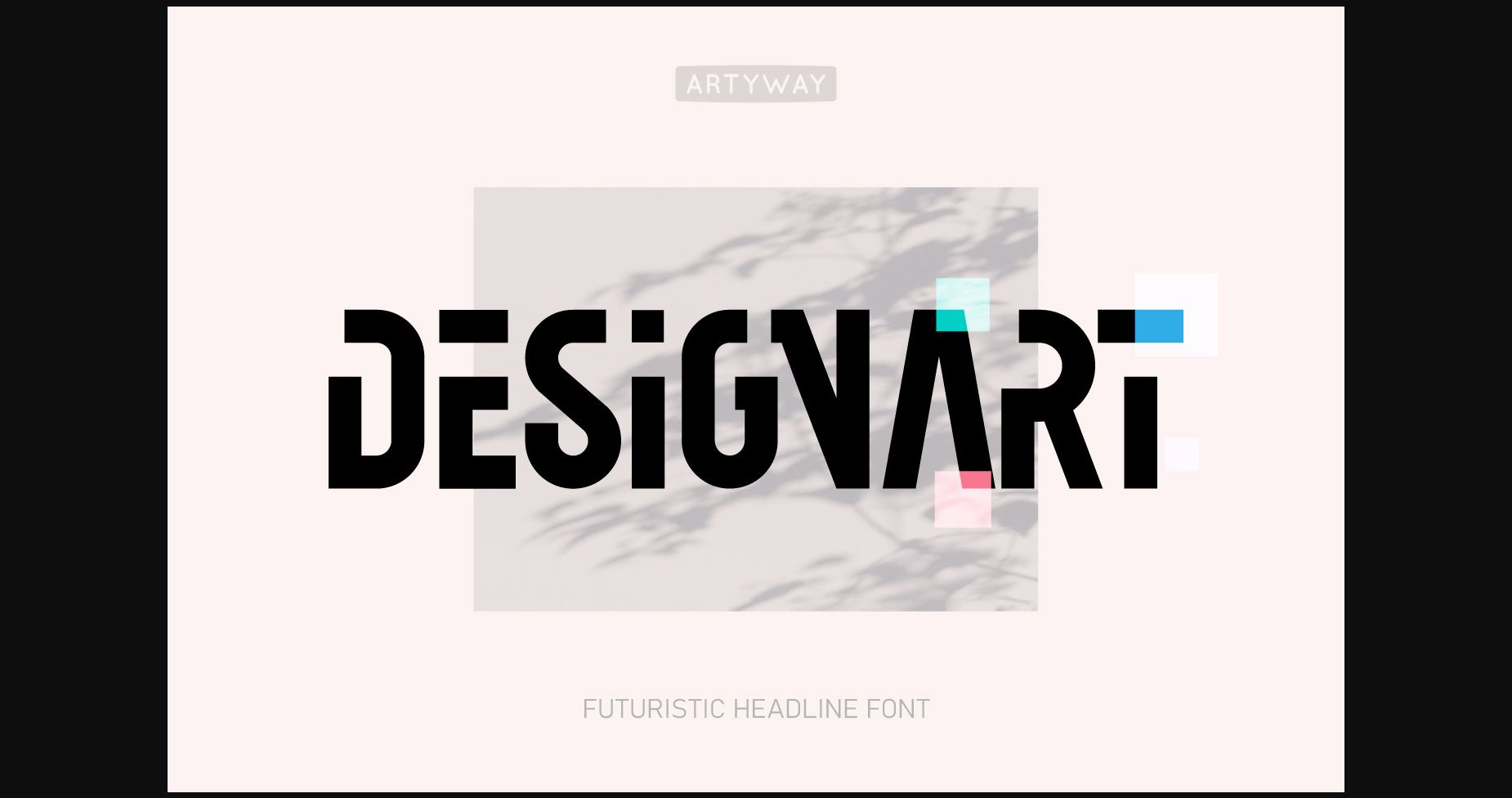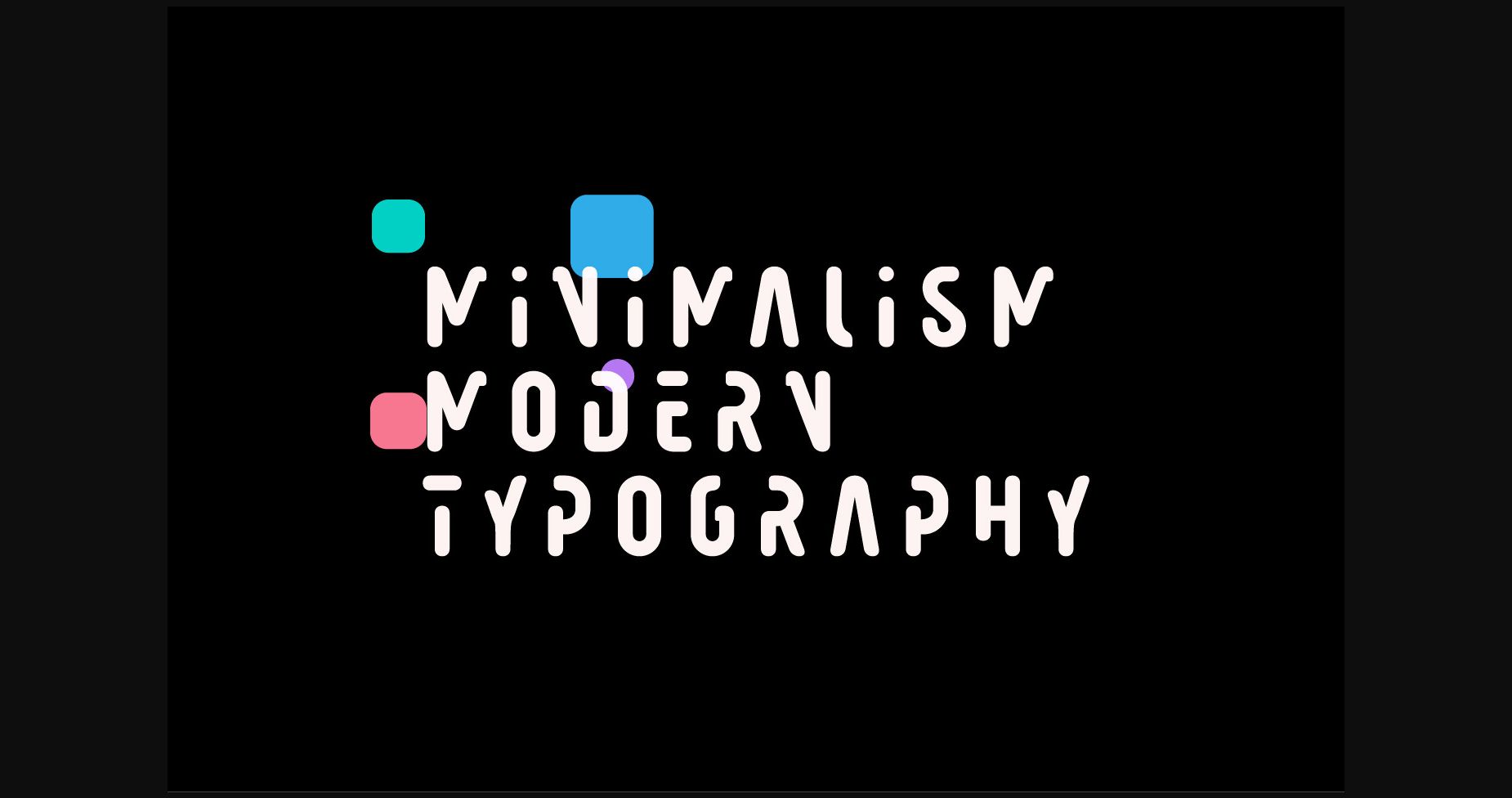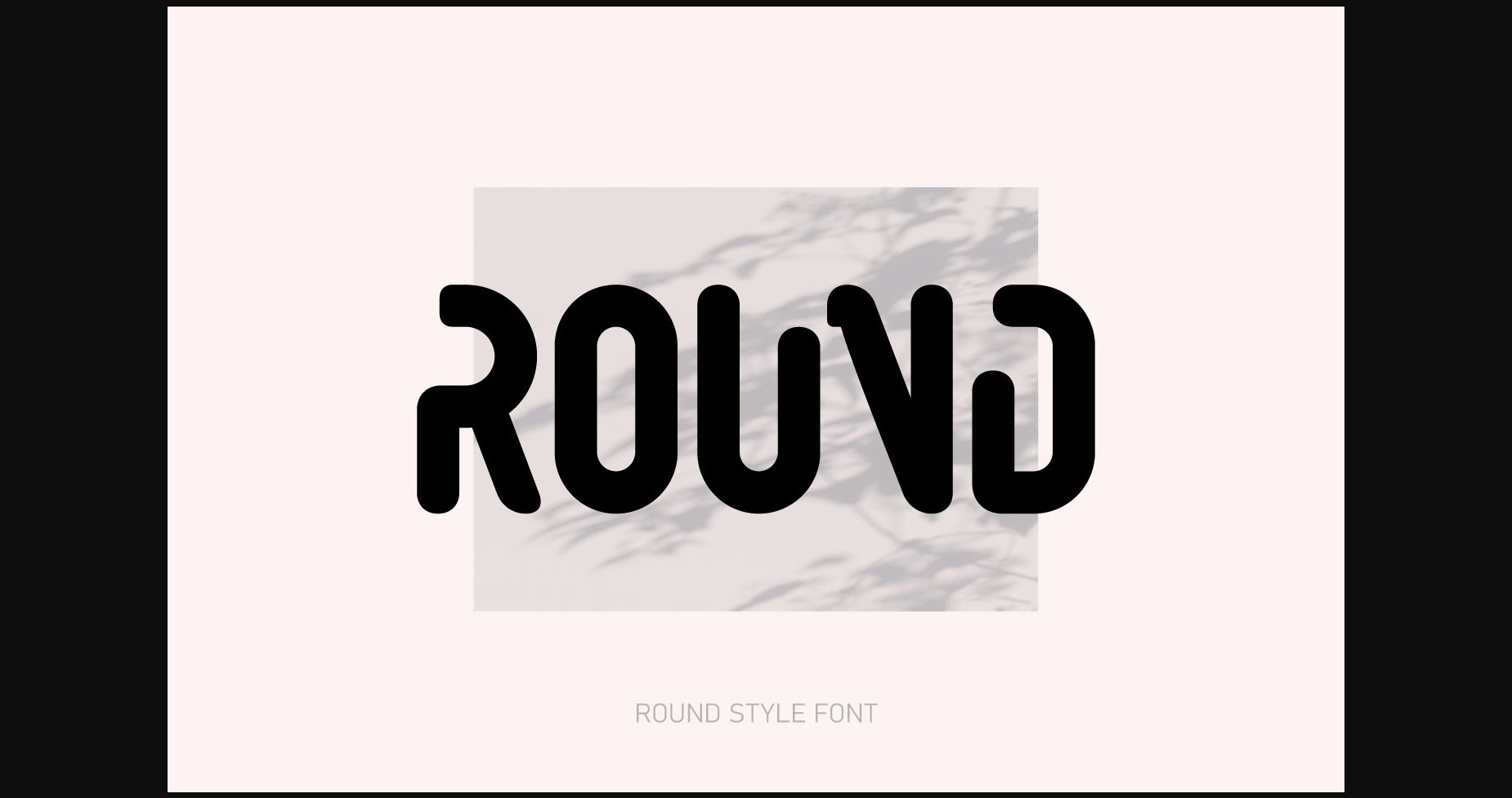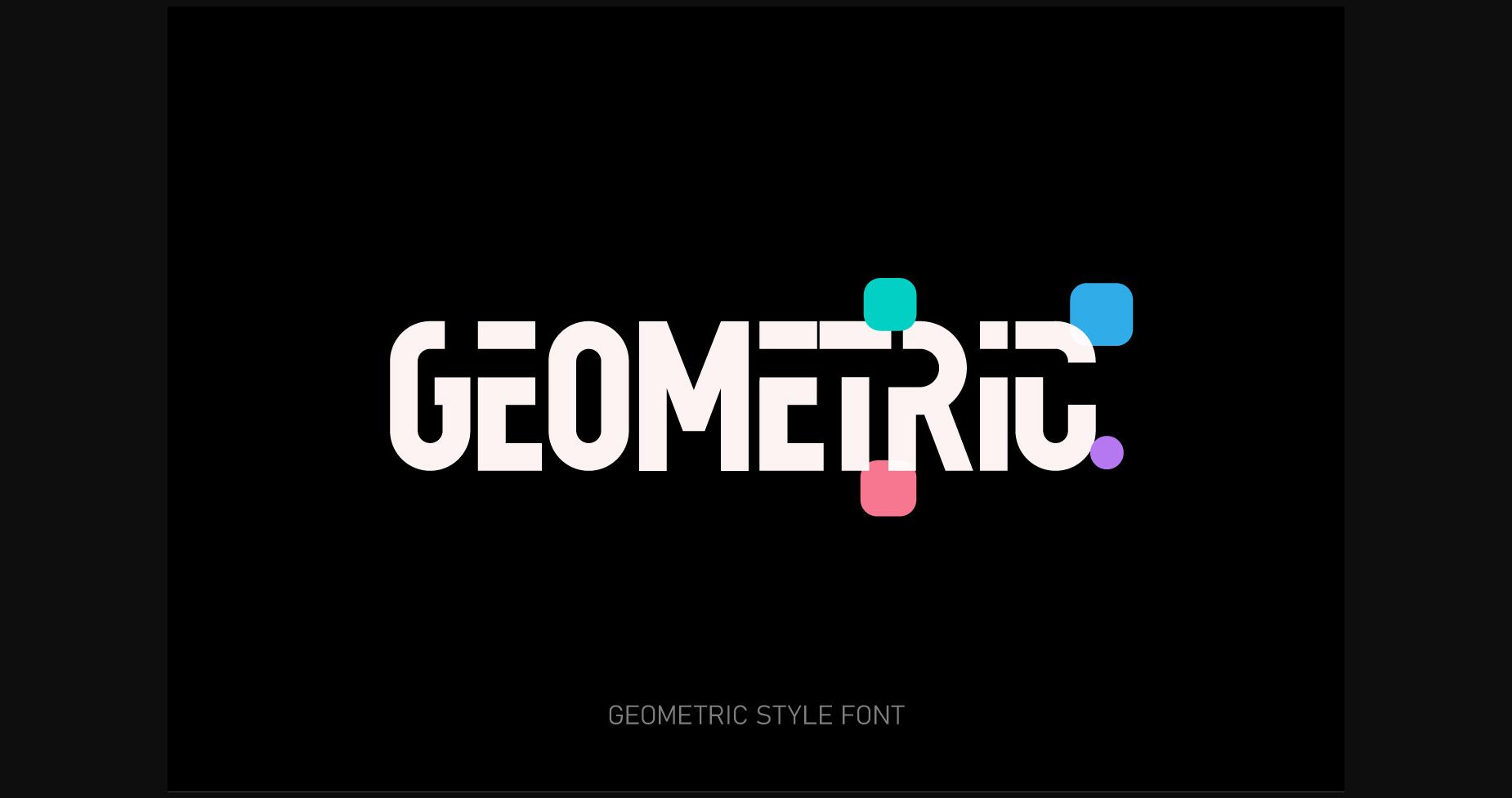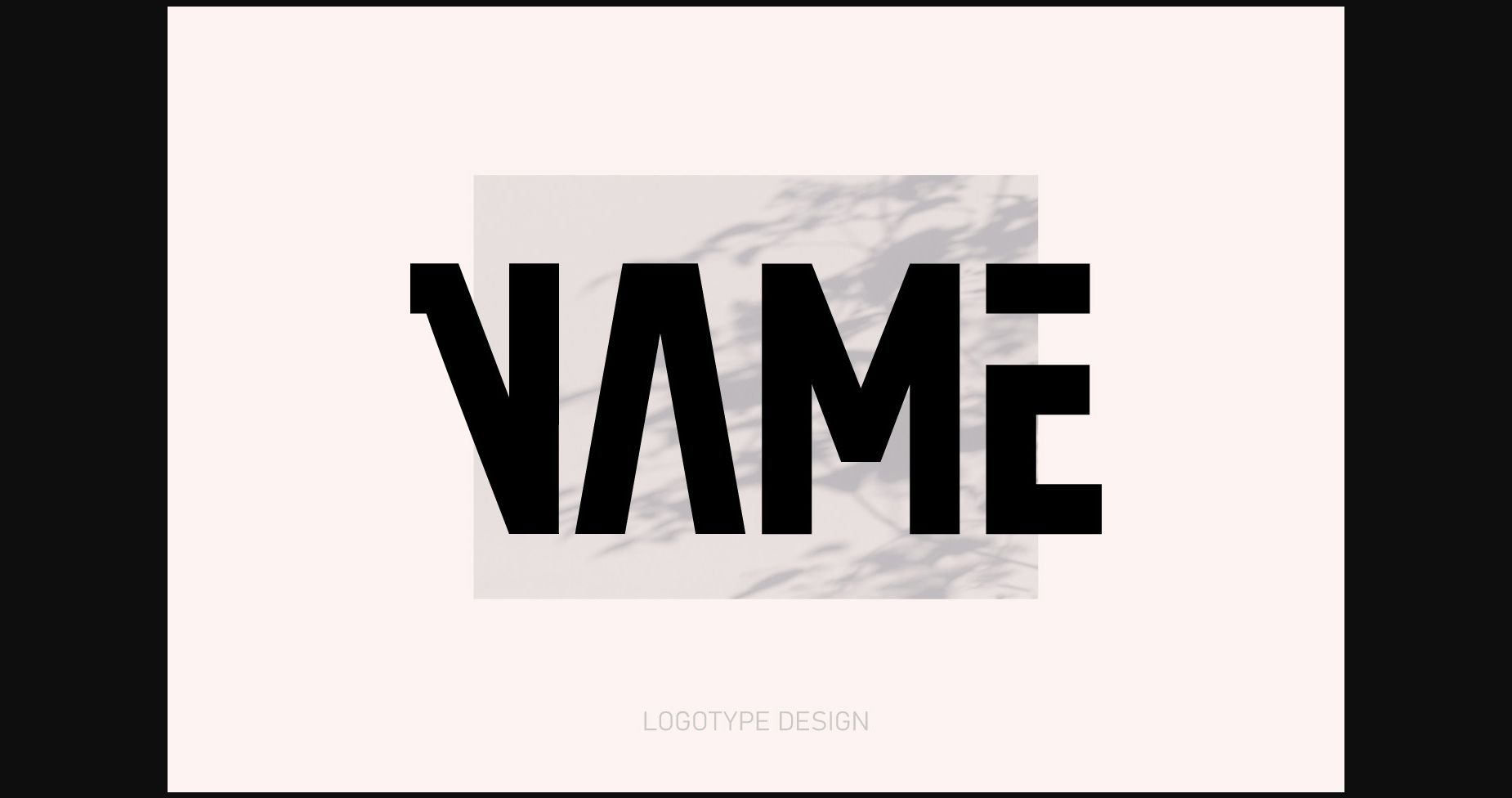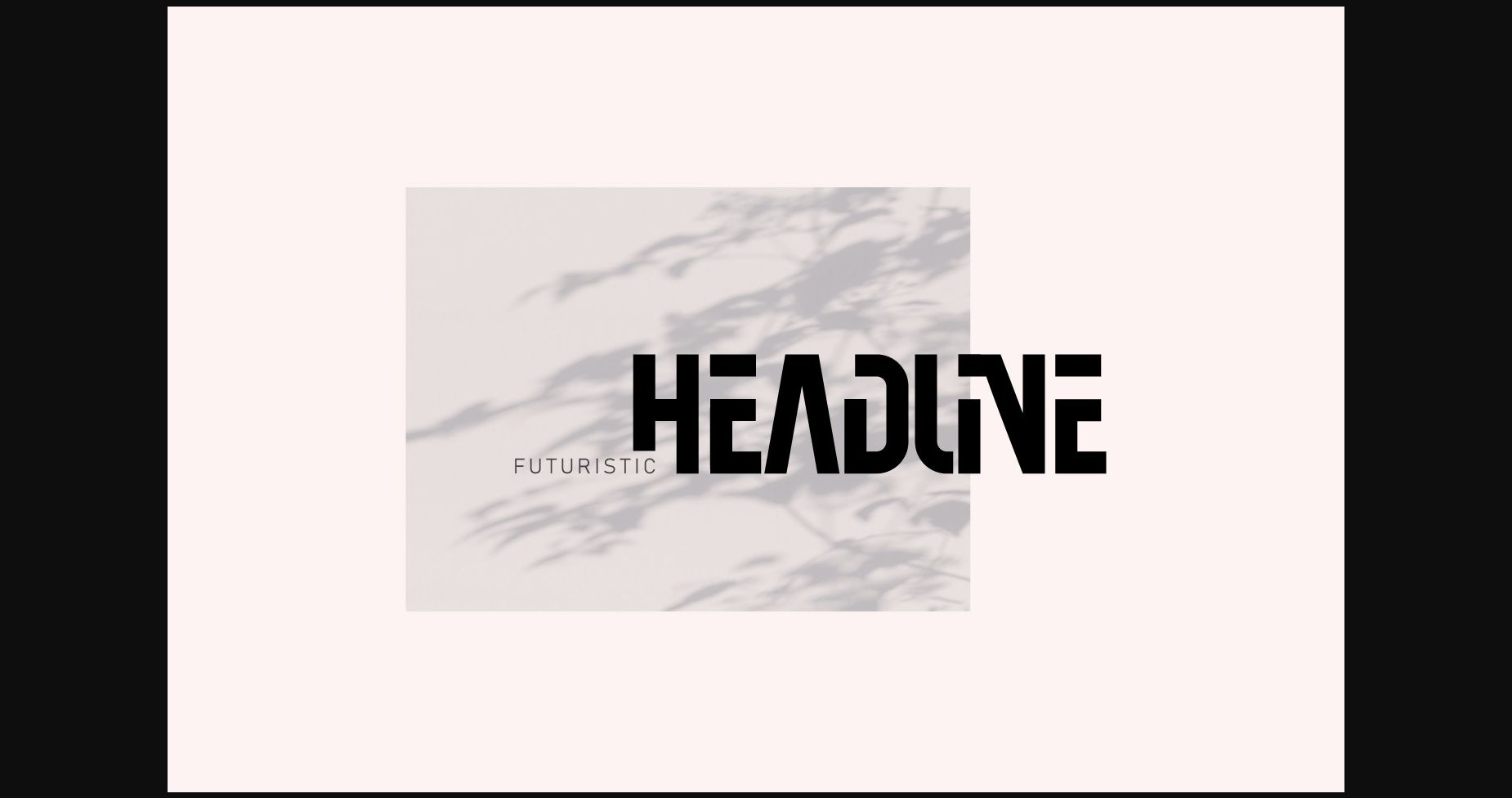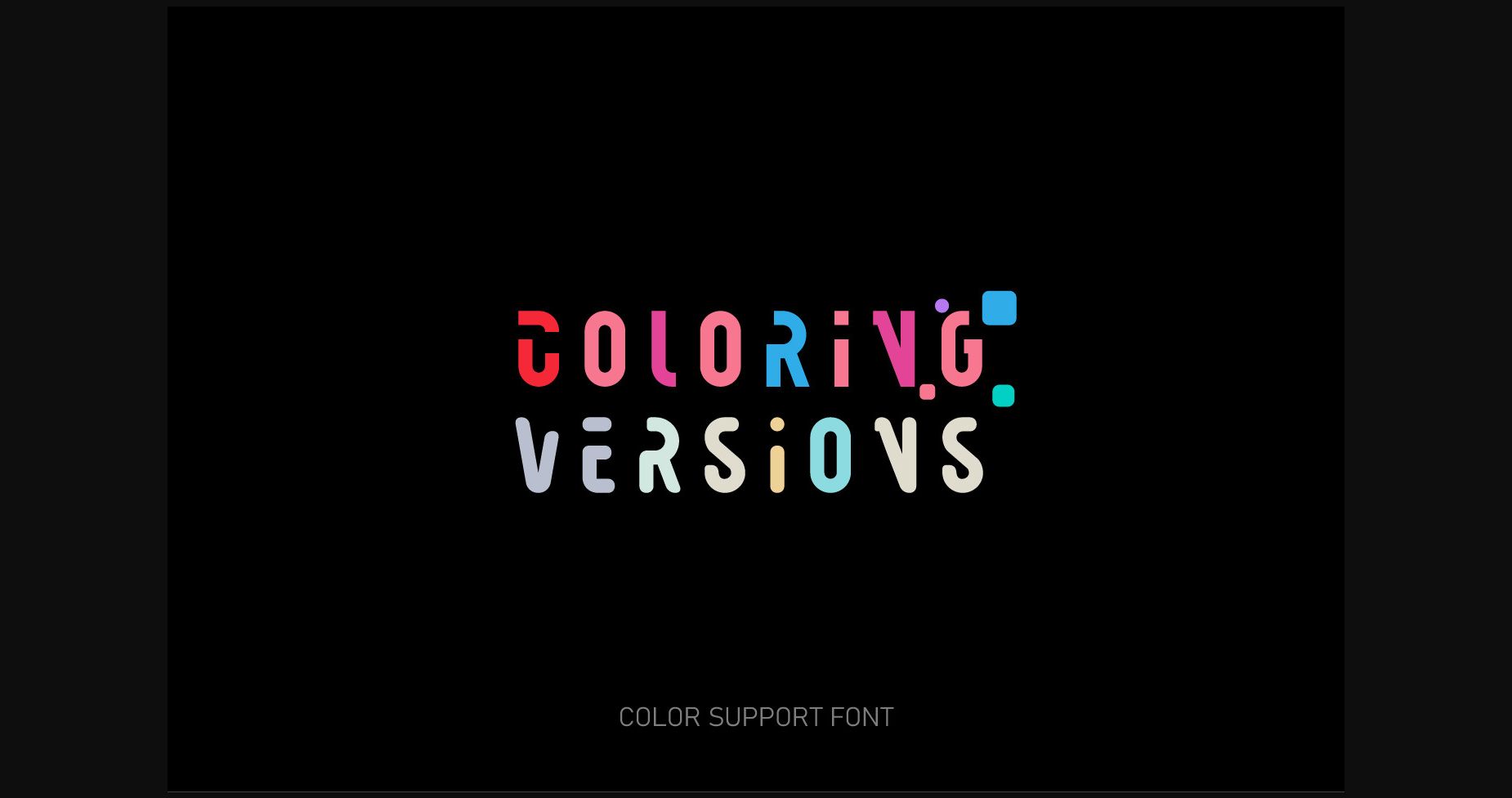
Designart Font
Introducing DesignArt, a cutting-edge font that merges artistry with a futuristic twist.
Its sleek and stylish letterforms exude creativity and innovation. Perfect for logos, headlines, and typographic compositions, DesignArt unleashes your creative potential. With precise geometry and a visually striking aesthetic, this font is a powerful tool for making bold statements and leaving a lasting impression.
Embrace the artistry and futurism of DesignArt to elevate your projects to new heights of visual expression.